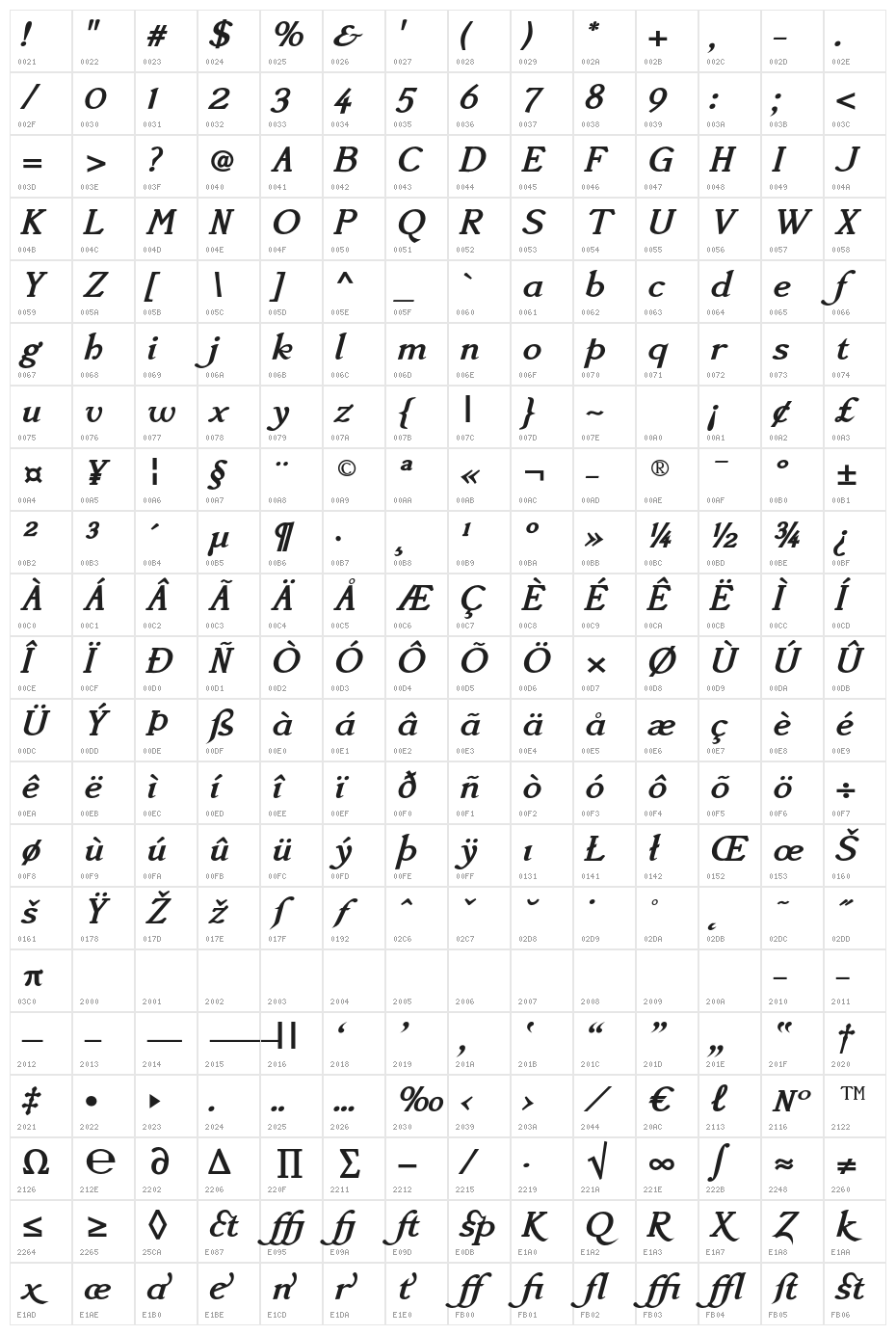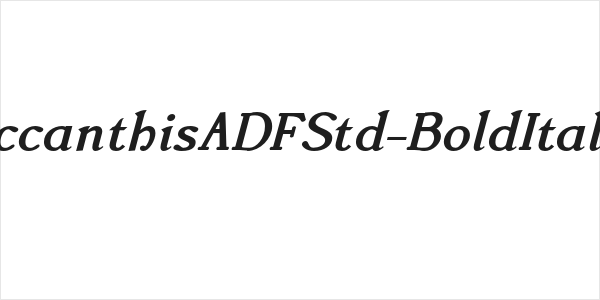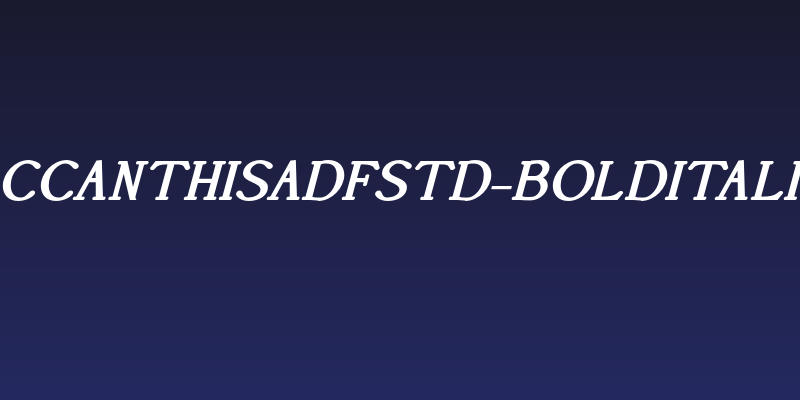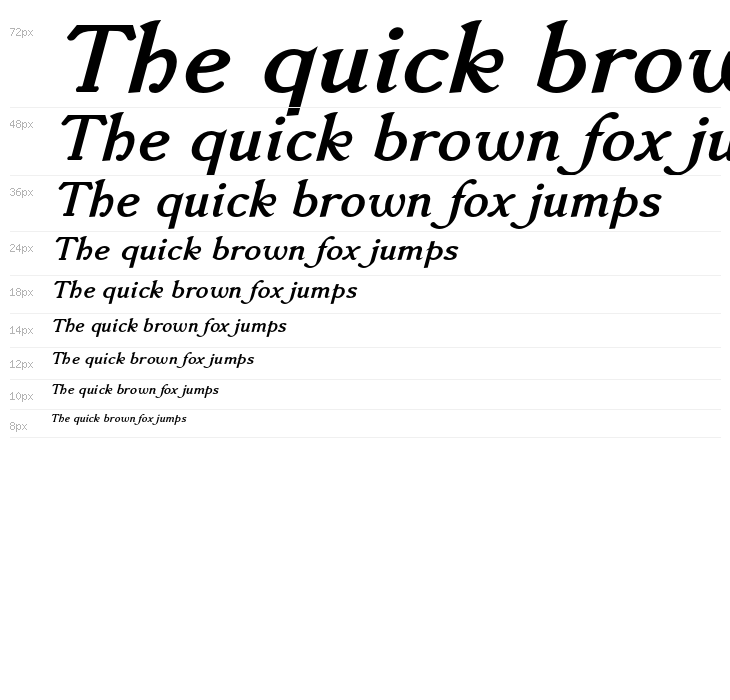
AccanthisADFStd-BoldItalic Font
AccanthisADFStd-BoldItalic Description
This font features a classic serif style with elegant, flowing lines and a distinct italic slant. The characters exhibit a bold weight, providing a strong presence on the page. The serifs are pronounced, adding a touch of sophistication and tradition. The uppercase letters are tall and commanding, while the lowercase letters maintain a smooth, cohesive appearance. The numerals are clear and well-defined, ensuring readability. Special characters are crafted with the same attention to detail, making them suitable for a variety of uses. Overall, this font combines traditional serif elements with a modern twist, making it versatile for both formal and creative applications.